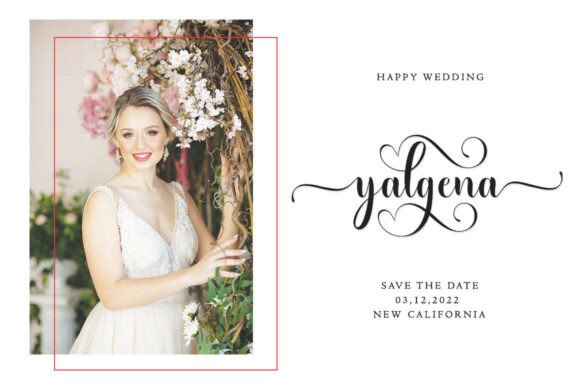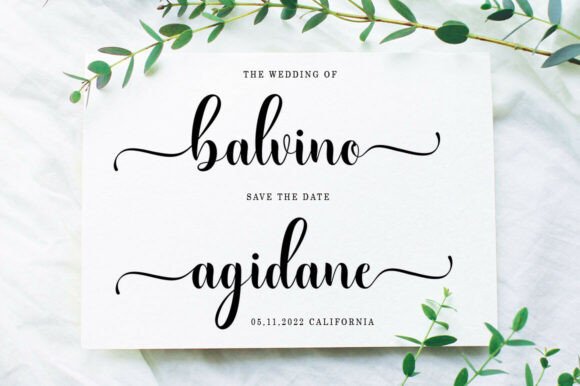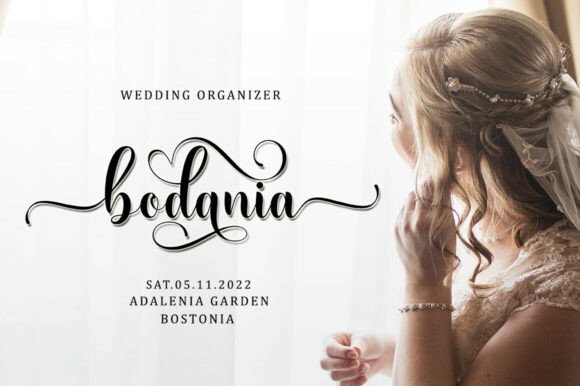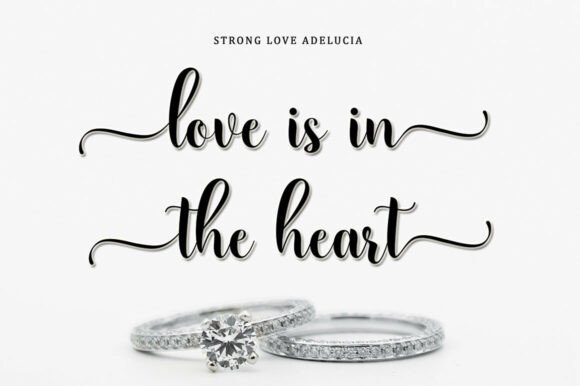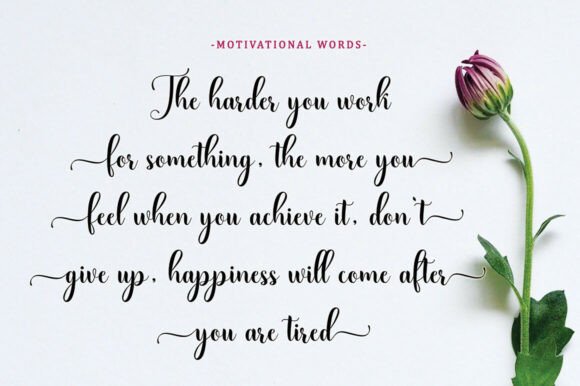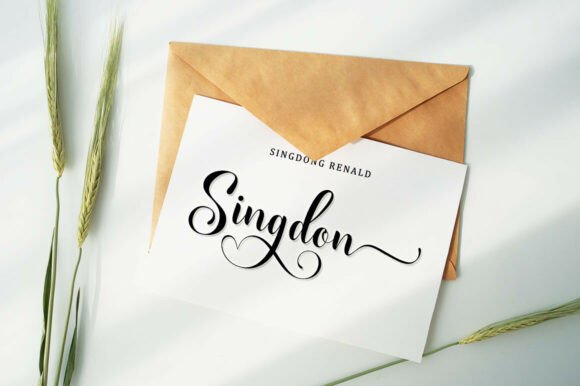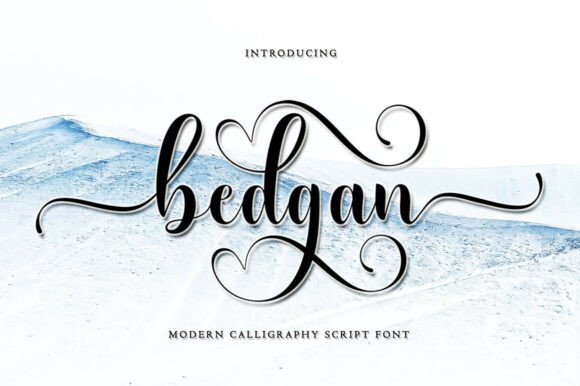
Introducing Bedgan: The Modern Calligraphy Script Font for Elegant Designs
In the world of typography, few fonts capture the essence of romance and elegance as effortlessly as Bedgan. This modern calligraphy script font is a masterpiece of fluid grace, sweeping swashes, and heart-inspired loops that come together to create a truly sophisticated typeface. Whether you’re a designer, crafter, or simply someone who appreciates the beauty of fine typography, Bedgan is sure to captivate your heart and inspire your creativity.
The Epitome of Romantic Typography
Bedgan is more than just a font – it’s an experience. Its dramatic, sweeping swashes and delicate, hand-lettered feel evoke a sense of luxury and refinement that’s perfect for high-end branding, signature logos, and luxury wedding invitations. Every word written in Bedgan becomes a work of art that exudes elegance and poise, making it an exquisite choice for anyone looking to add a touch of sophistication to their designs.
Design Features of Bedgan
So, what makes Bedgan so special? Here are just a few of its standout features:
- Dramatic Swashes: Bedgan’s sweeping swashes add a touch of drama and flair to any design, making it perfect for headlines, titles, and emphasis.
- Heart-Inspired Loops: The font’s heart-inspired loops add a playful, whimsical touch that’s sure to capture the heart of anyone who sees it.
- Delicate, Hand-Lettered Feel: Bedgan’s hand-lettered feel gives it a unique, organic quality that’s perfect for luxury branding, wedding invitations, and other special occasions.
- Ethereal Beauty: The font’s ethereal beauty makes it perfect for poetic editorial layouts, dreamy photography captions, and other creative projects that require a touch of magic.
Bedgan is more than just a font – it’s a tool for creative expression. Whether you’re a designer looking to add a touch of elegance to your client’s branding or a crafter seeking to create beautiful, handmade cards and invitations, Bedgan is the perfect choice. Its versatility and flexibility make it suitable for a wide range of projects, from:
- Luxury Wedding Invitations: Add a touch of sophistication and romance to your wedding invitations with Bedgan’s elegant script.
- High-End Branding: Elevate your client’s brand with Bedgan’s luxurious, high-end feel.
- Signature Logos: Create a lasting impression with Bedgan’s unique, hand-lettered feel.
- Poetic Editorial Layouts: Add a touch of magic to your editorial layouts with Bedgan’s ethereal beauty.
Why Choose Bedgan?
With so many fonts available, why choose Bedgan? Here are just a few reasons why Bedgan stands out from the crowd:
- Unique and Exclusive: Bedgan is a one-of-a-kind font that’s sure to make your designs stand out.
- High-Quality Design: The font’s high-quality design ensures that it will look great in any project, from print to digital.
- Versatile: The font’s versatility makes it suitable for a wide range of projects, from luxury branding to poetic editorial layouts.
In conclusion, Bedgan is a modern calligraphy script font that exudes elegance, sophistication, and romance. Its dramatic swashes, heart-inspired loops, and delicate, hand-lettered feel make it the perfect choice for designers and crafters looking to add a touch of luxury to their designs. Whether you’re creating luxury wedding invitations, high-end branding, signature logos, or poetic editorial layouts, Bedgan is sure to capture the heart of anyone who sees it. So why wait? Try Bedgan today and experience the magic of beautiful typography for yourself!